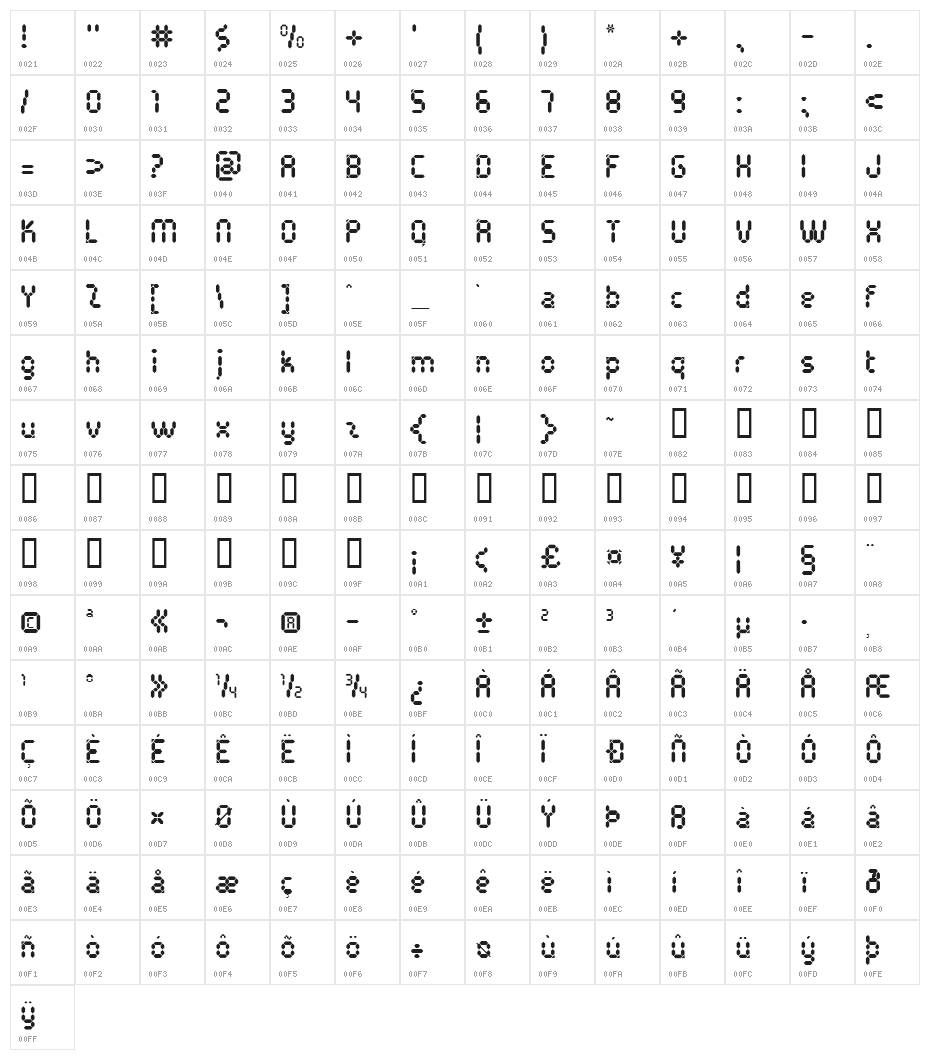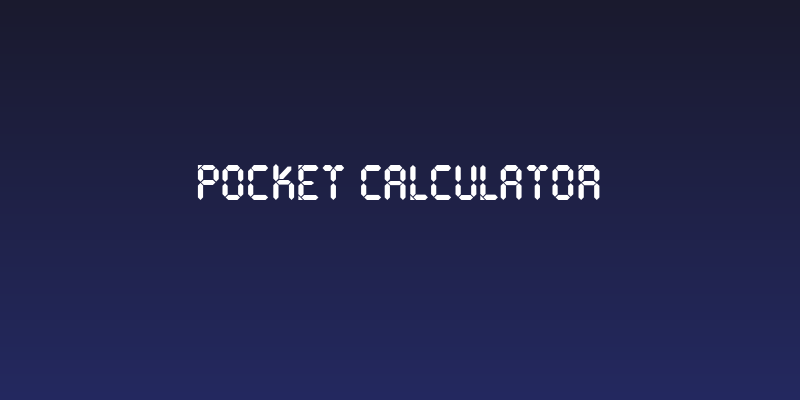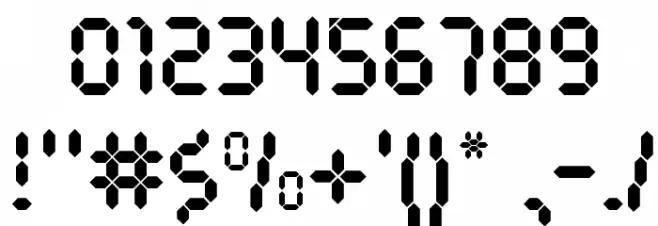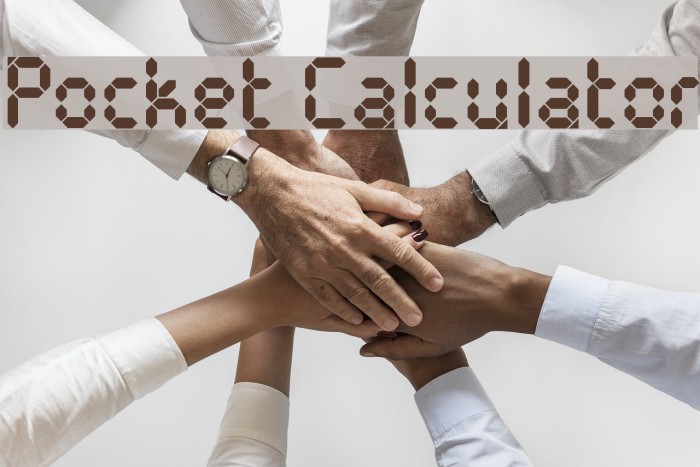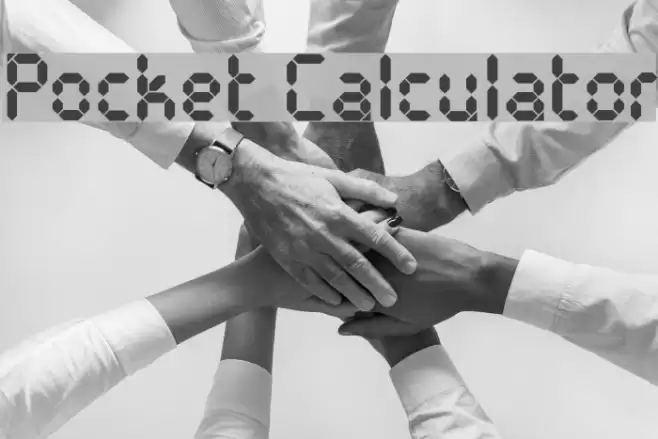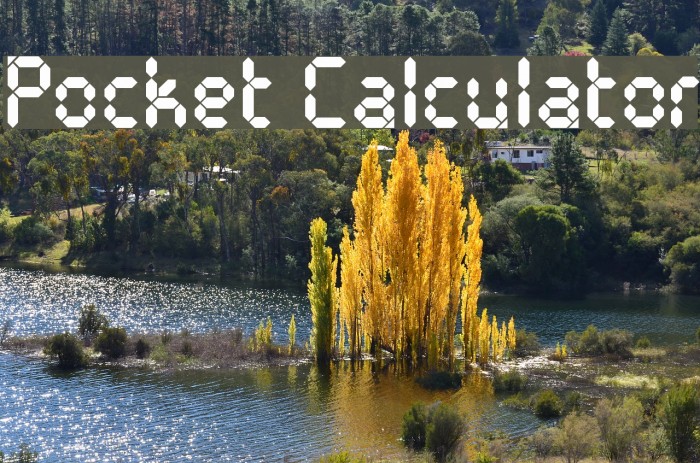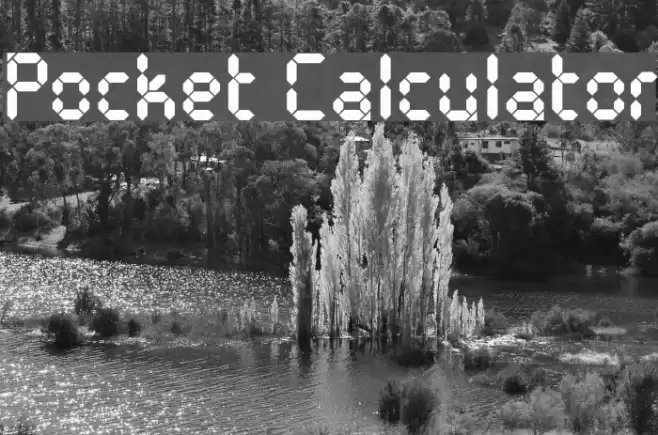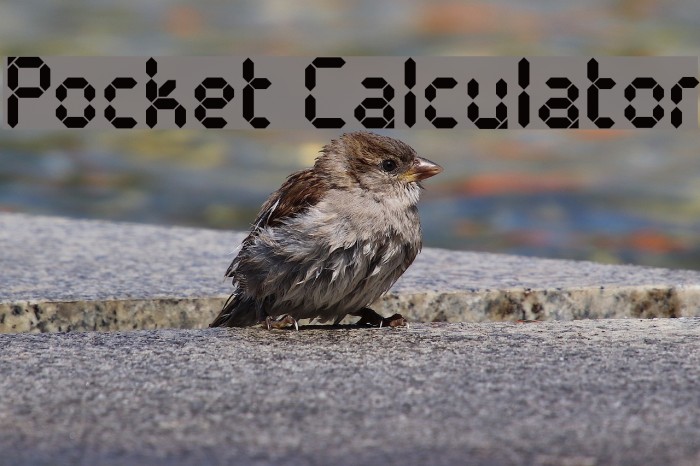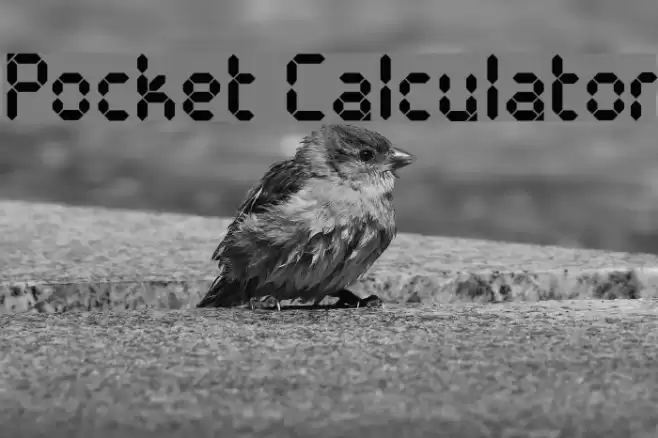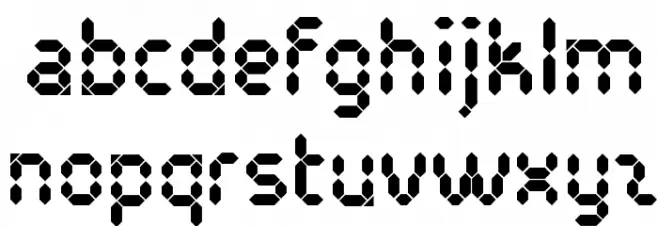
Pocket Calculator Font
| Style général | Retro, Digital |
| Cas d'utilisation | Headlines, Logos, Digital Displays |
| Projets proposés | Ideal for tech-themed designs, retro digital displays, video game graphics, and electronic device interfaces. |